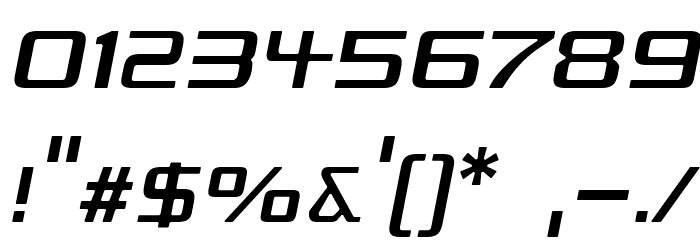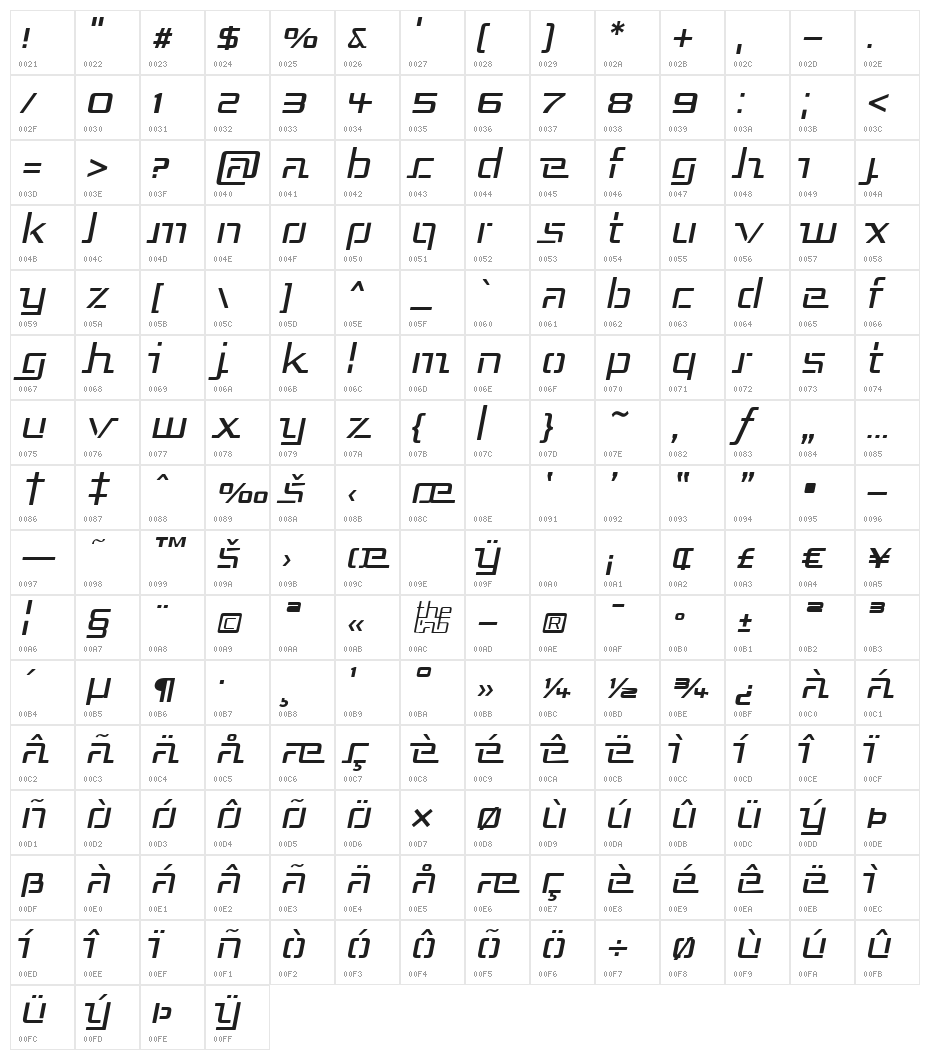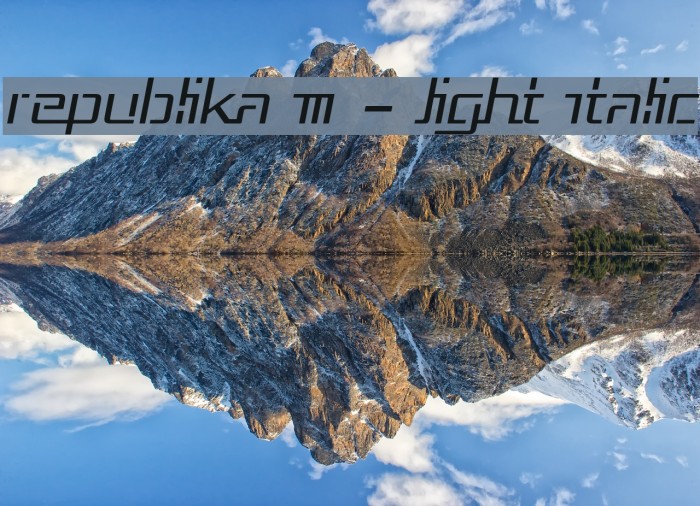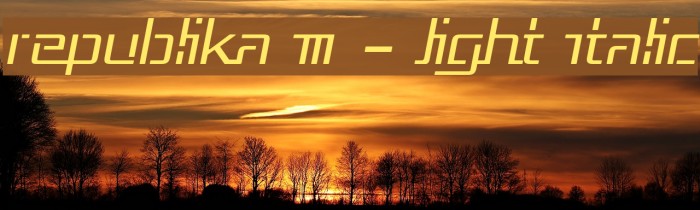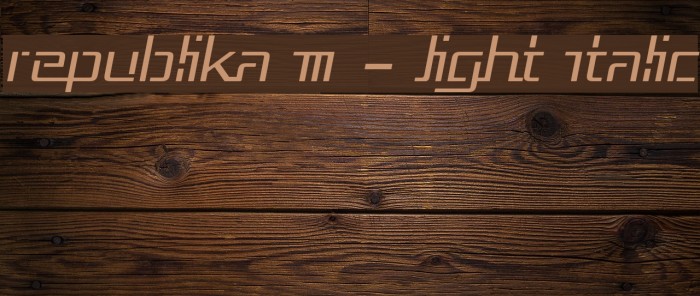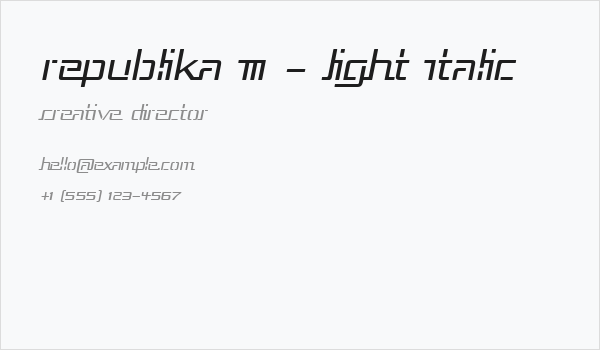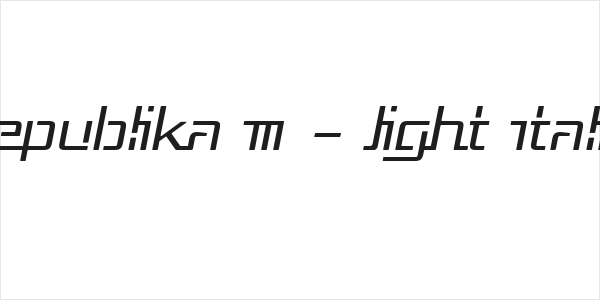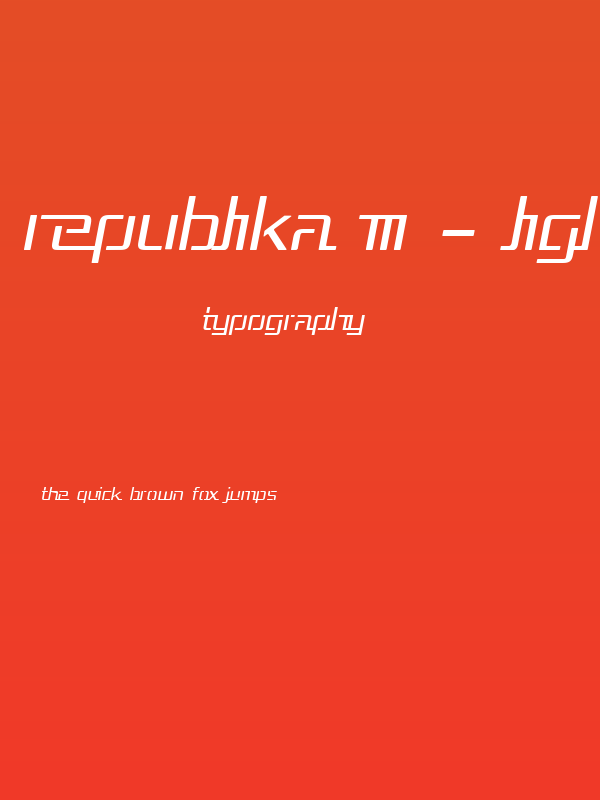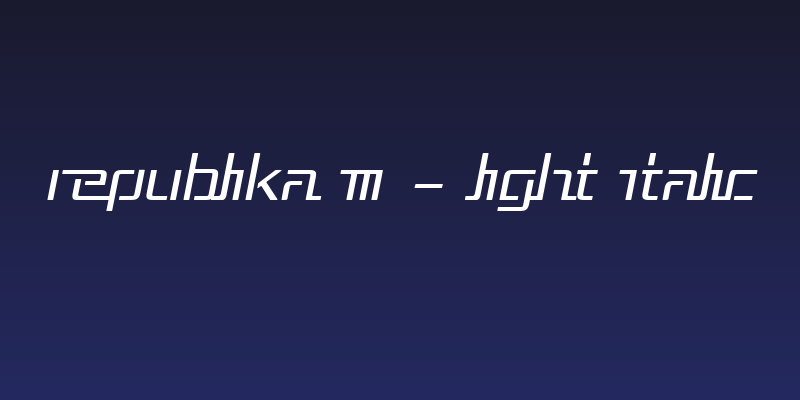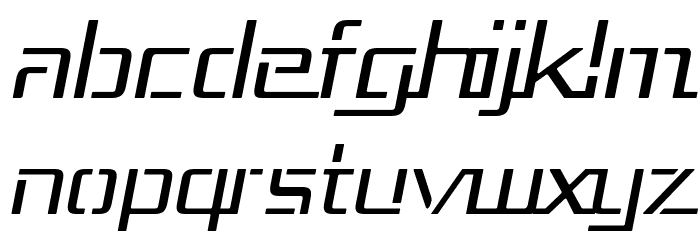
Republika III - Light Italic Font
Republika III - Light Italic Description
This font exhibits a sleek, modern design with a futuristic flair. The characters are slightly slanted, giving an italicized appearance that enhances its dynamic look. The strokes are clean and consistent, with a geometric structure that emphasizes sharp angles and straight lines. The overall appearance is streamlined and efficient, making it suitable for projects that require a contemporary and tech-savvy aesthetic. The spacing between characters is balanced, allowing for clear readability while maintaining a compact form. This font is particularly effective in conveying a sense of innovation and forward-thinking.
| Use Case | Logos, Headlines, Digital interfaces |
| Proposed Projects | Ideal for tech branding, modern advertisements, digital interfaces, and innovative product packaging. |